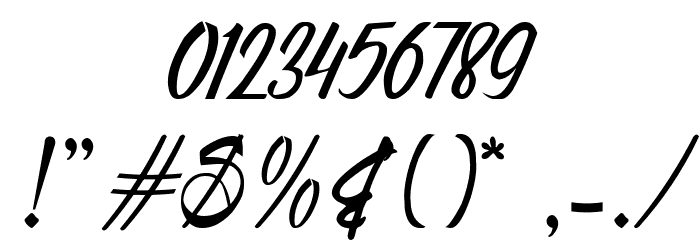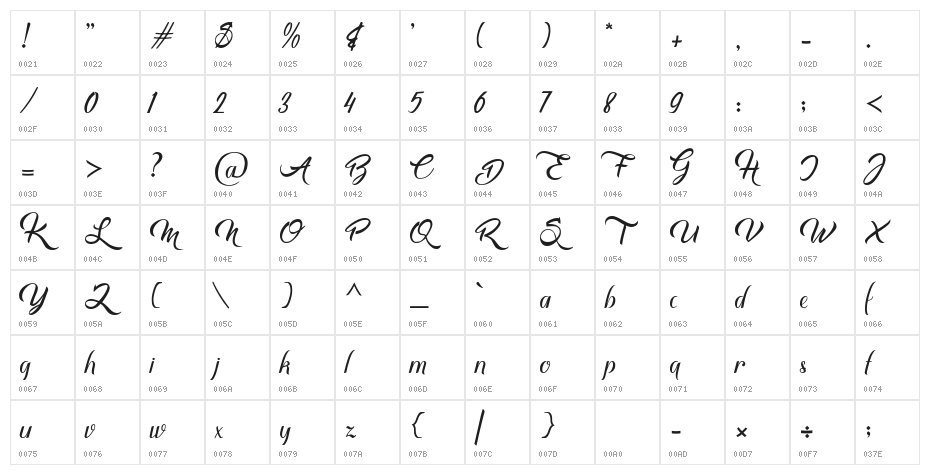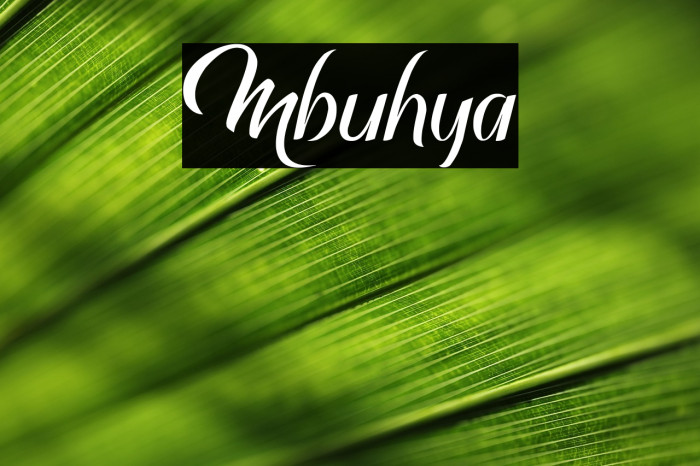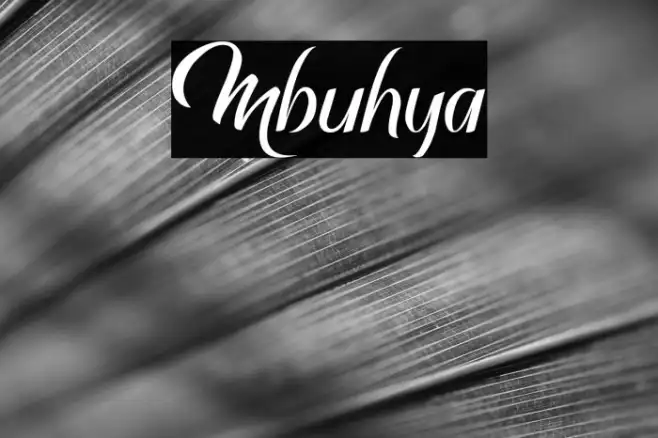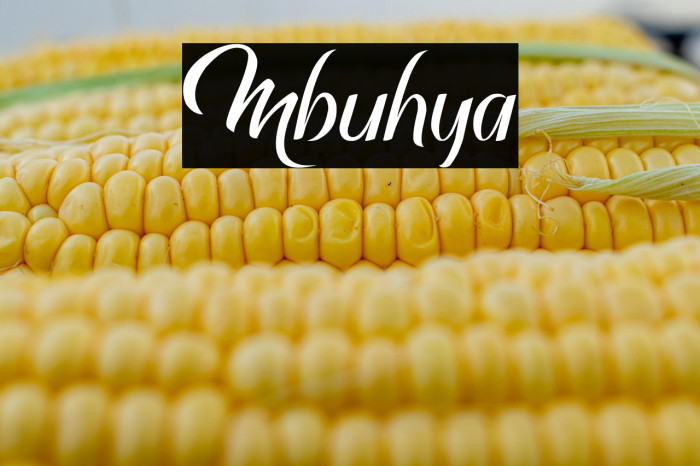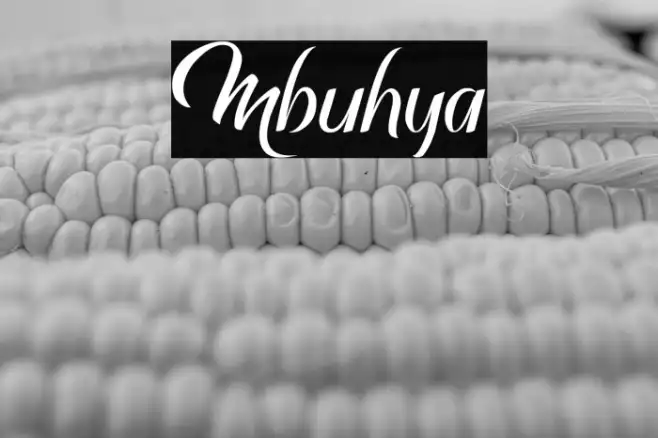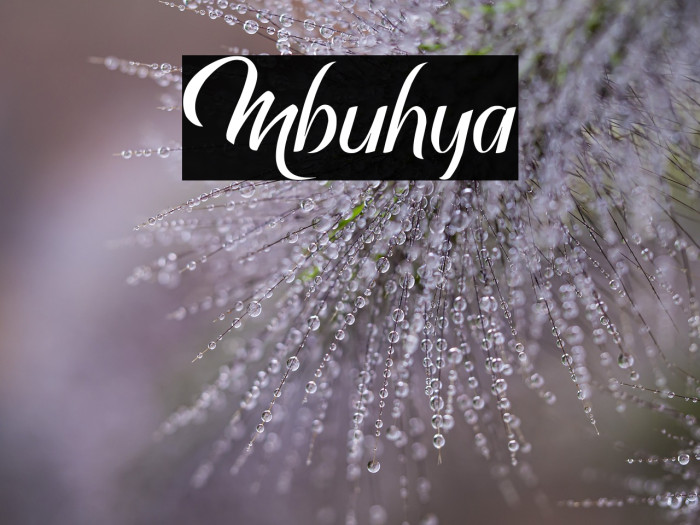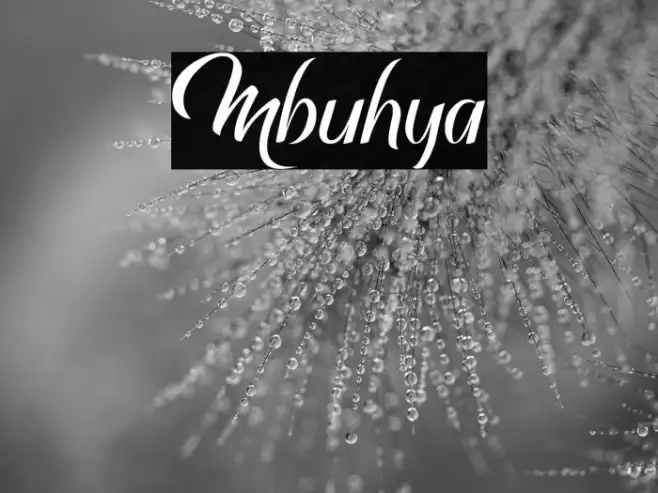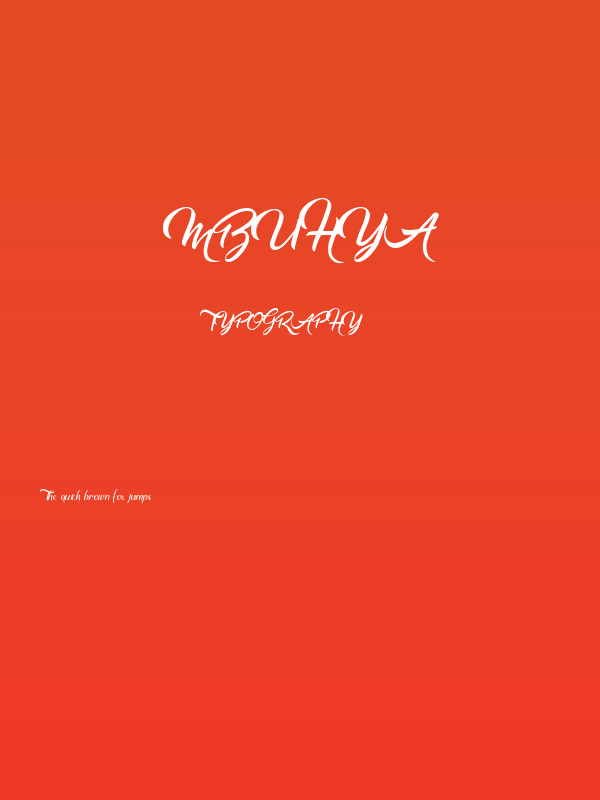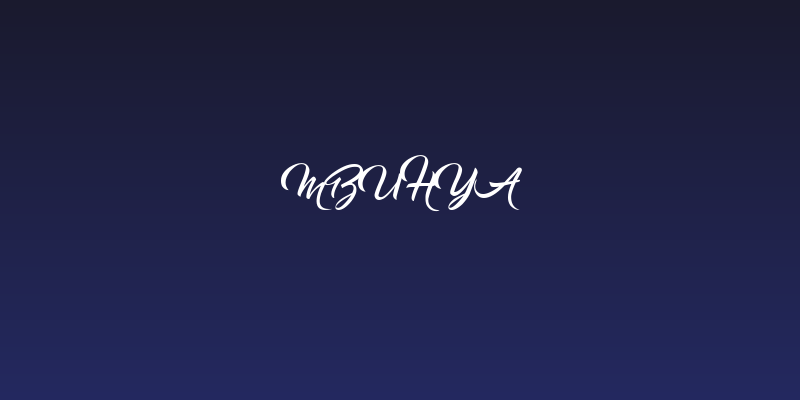
Mbuhya Font
Mbuhya Description
This elegant script font features flowing, cursive letters with a sophisticated flair. The uppercase characters are ornate, with sweeping curves and intricate details that give a sense of movement and grace. The lowercase letters maintain a consistent style, offering a harmonious blend of formality and creativity. Numbers and special characters are designed to complement the overall aesthetic, making this font versatile for various applications. The strokes vary in thickness, adding a dynamic contrast that enhances readability while maintaining an artistic touch.
Overall StyleElegant
Use CaseHeadlines, Logos, Invitations
Proposed ProjectsIdeal for wedding invitations, elegant branding, greeting cards, and decorative headings.